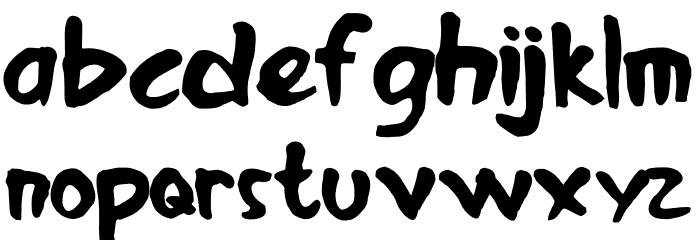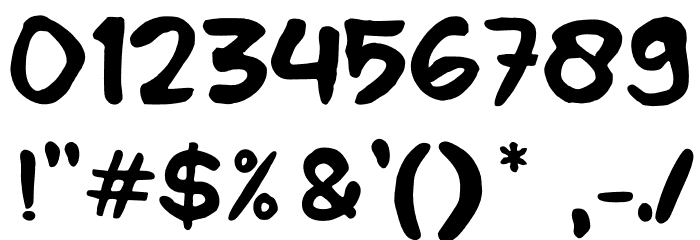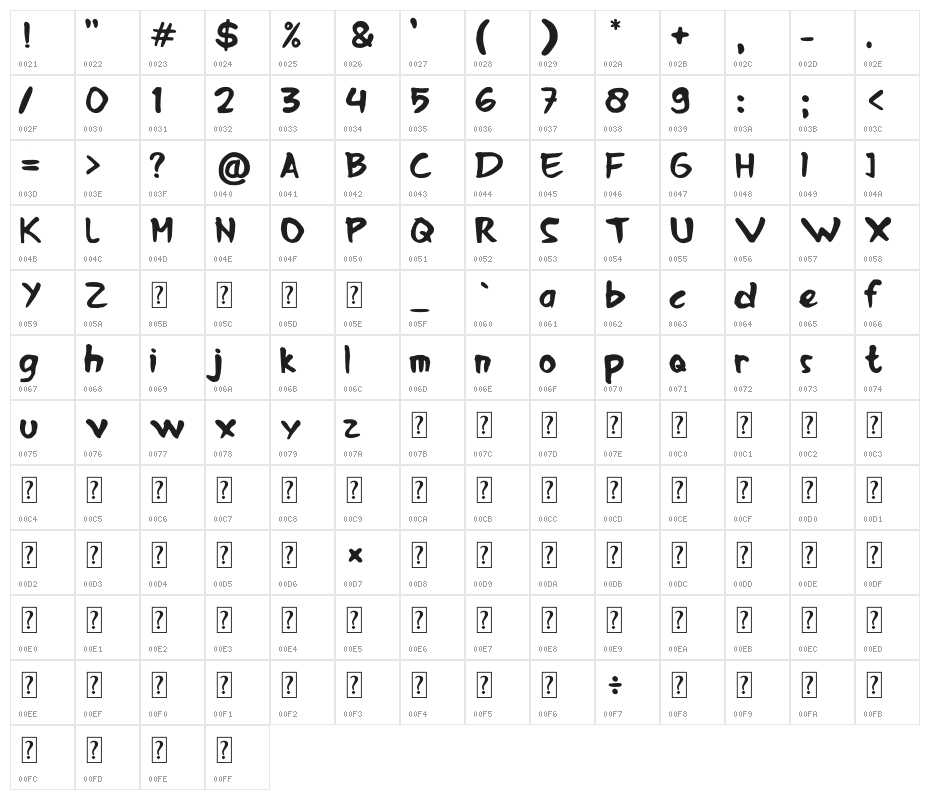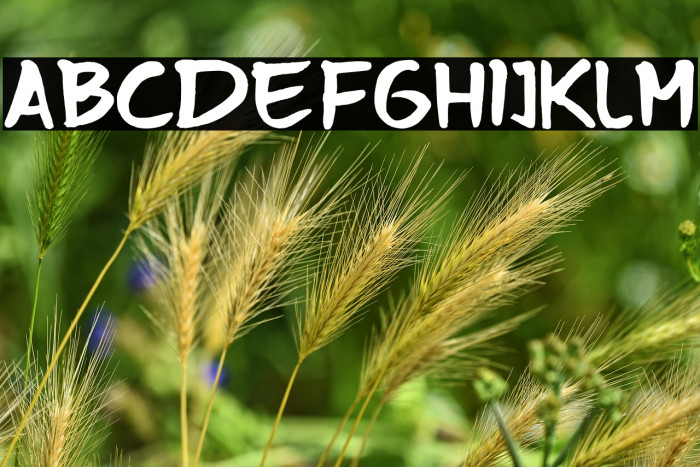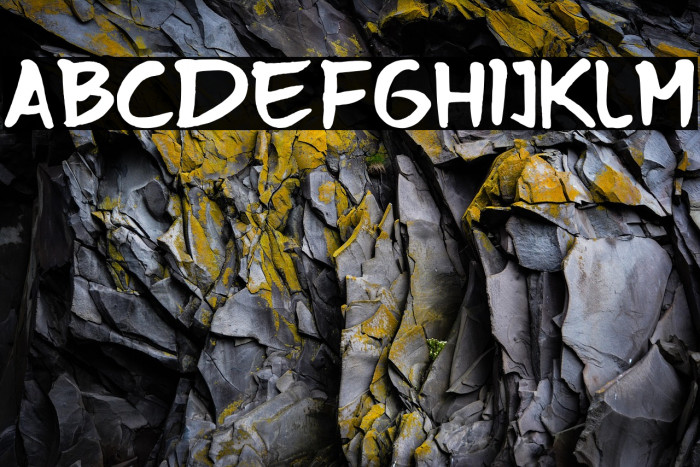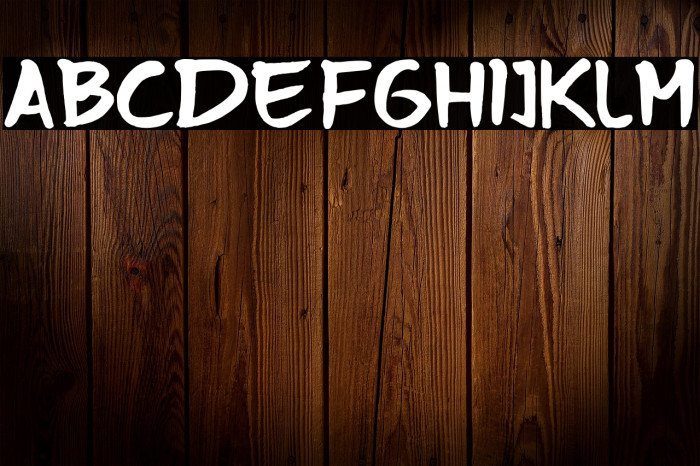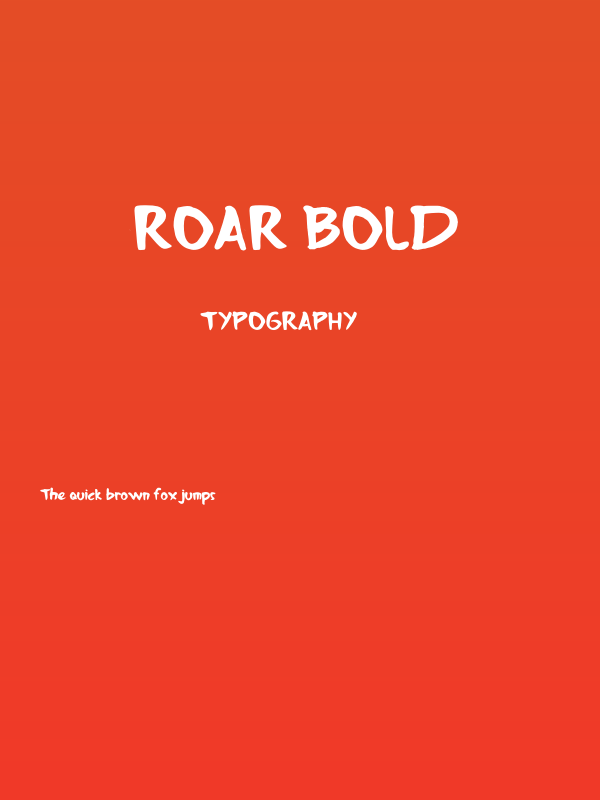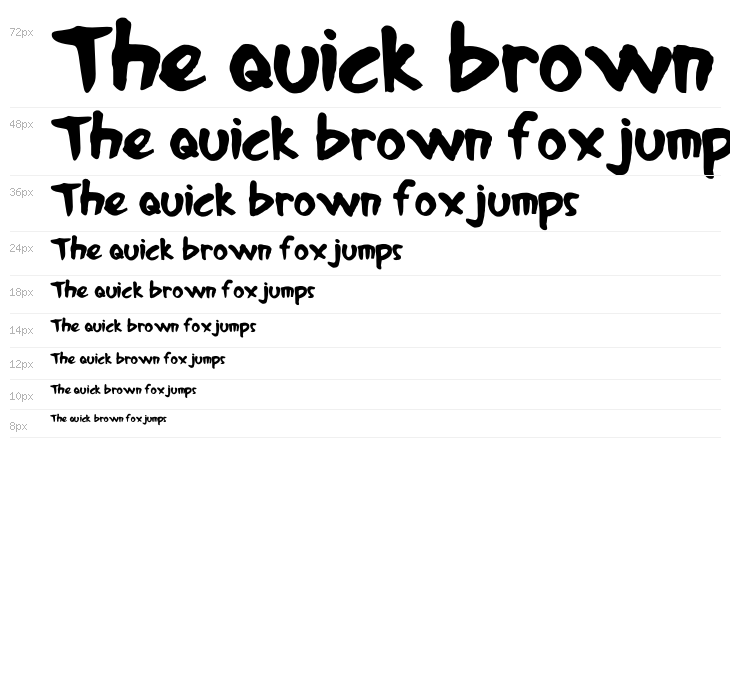
Roar Bold Font
This bold and expressive font features a hand-drawn, playful style with thick strokes and rounded edges. The characters are slightly irregular, giving it a dynamic and energetic feel. The uppercase and lowercase letters maintain a consistent weight, creating a cohesive look across the alphabet. Numbers and special characters follow the same bold, lively design, making them stand out. The font's organic appearance is both approachable and eye-catching, suitable for projects that require a personal touch.
A bold, hand-drawn font with a playful and energetic style.
- Font: Roar Bold
- Proposed Projects: Ideal for children's books, playful branding, posters, and creative projects that require a fun and lively aesthetic.
- Overall Style: Playful